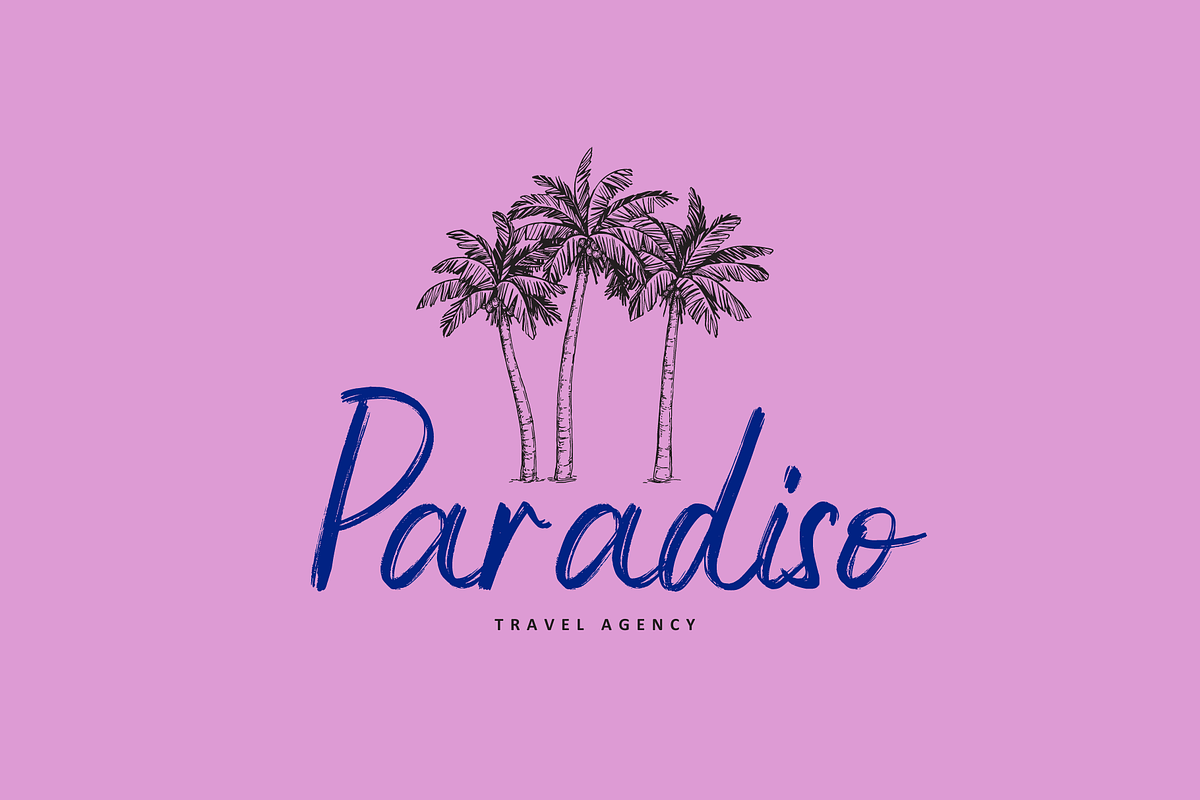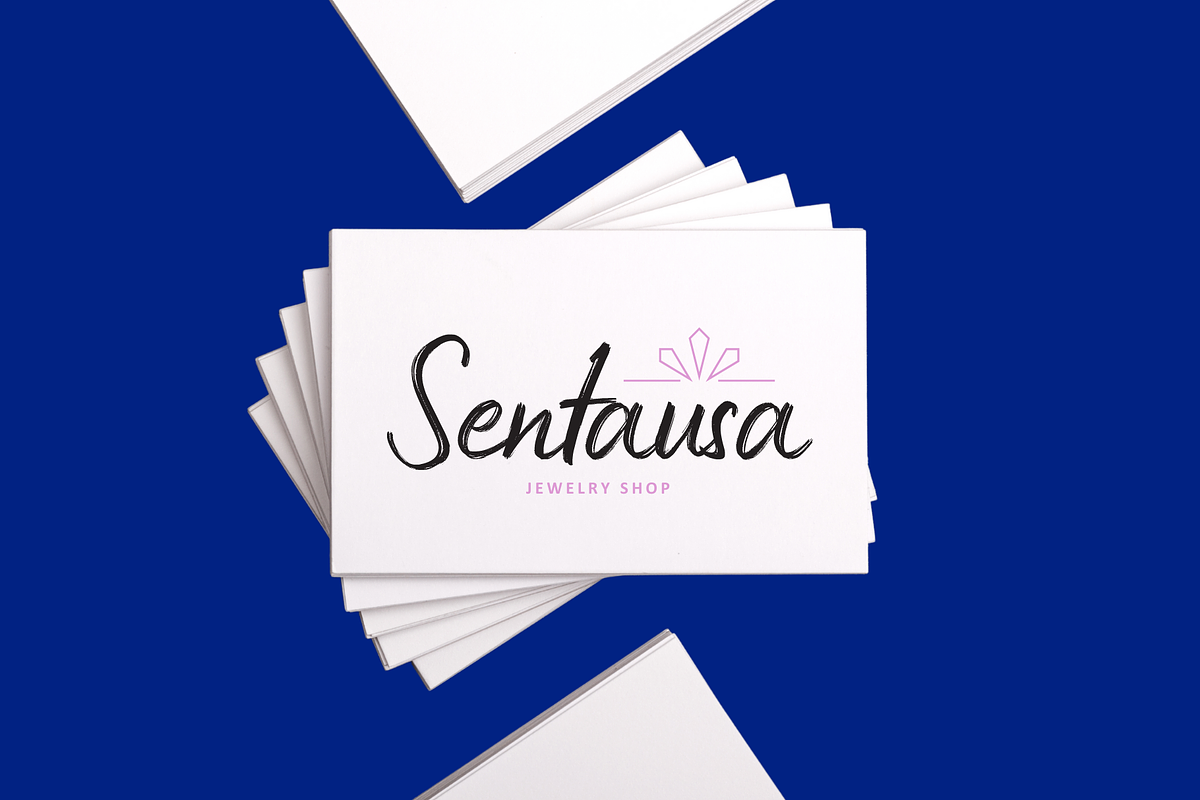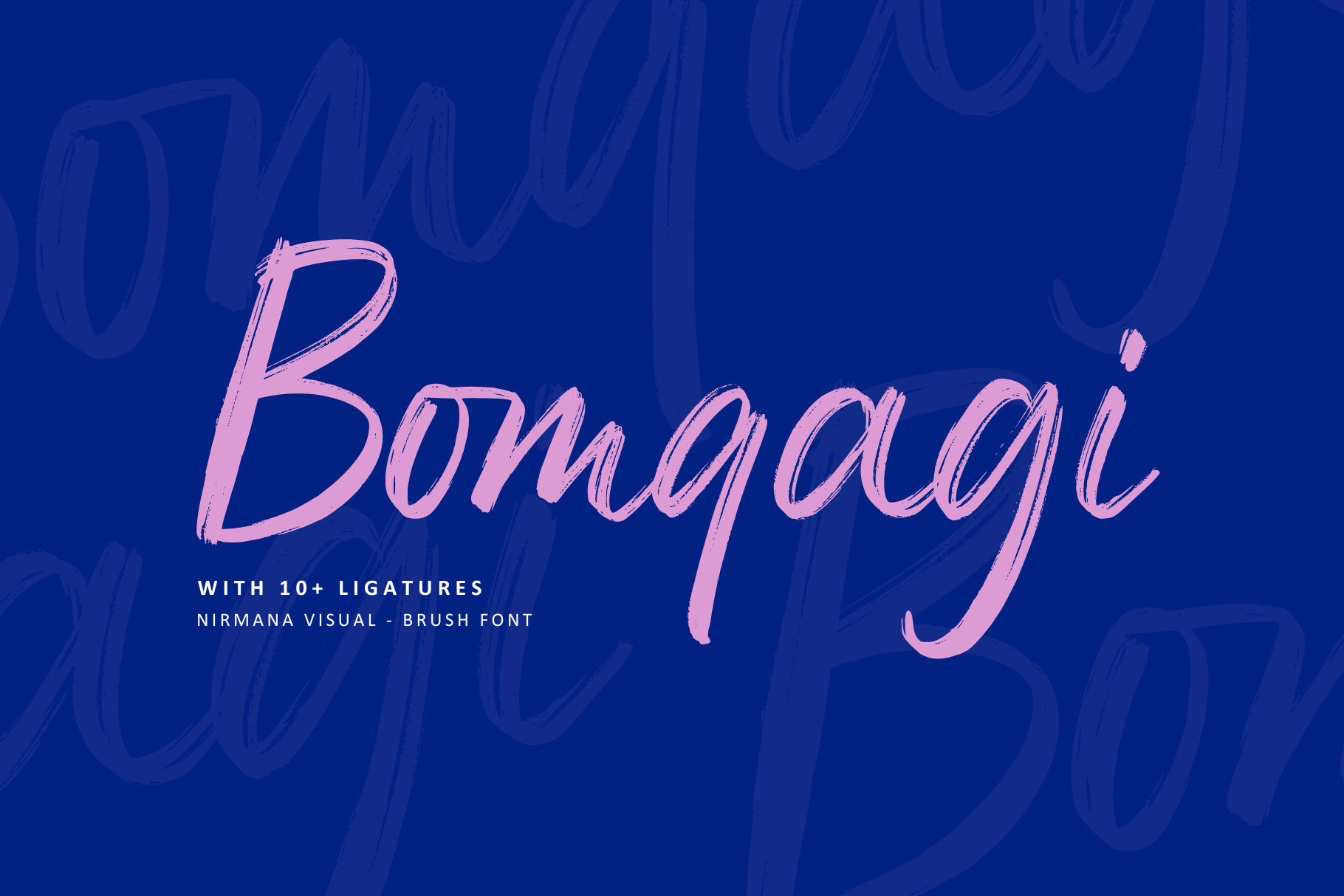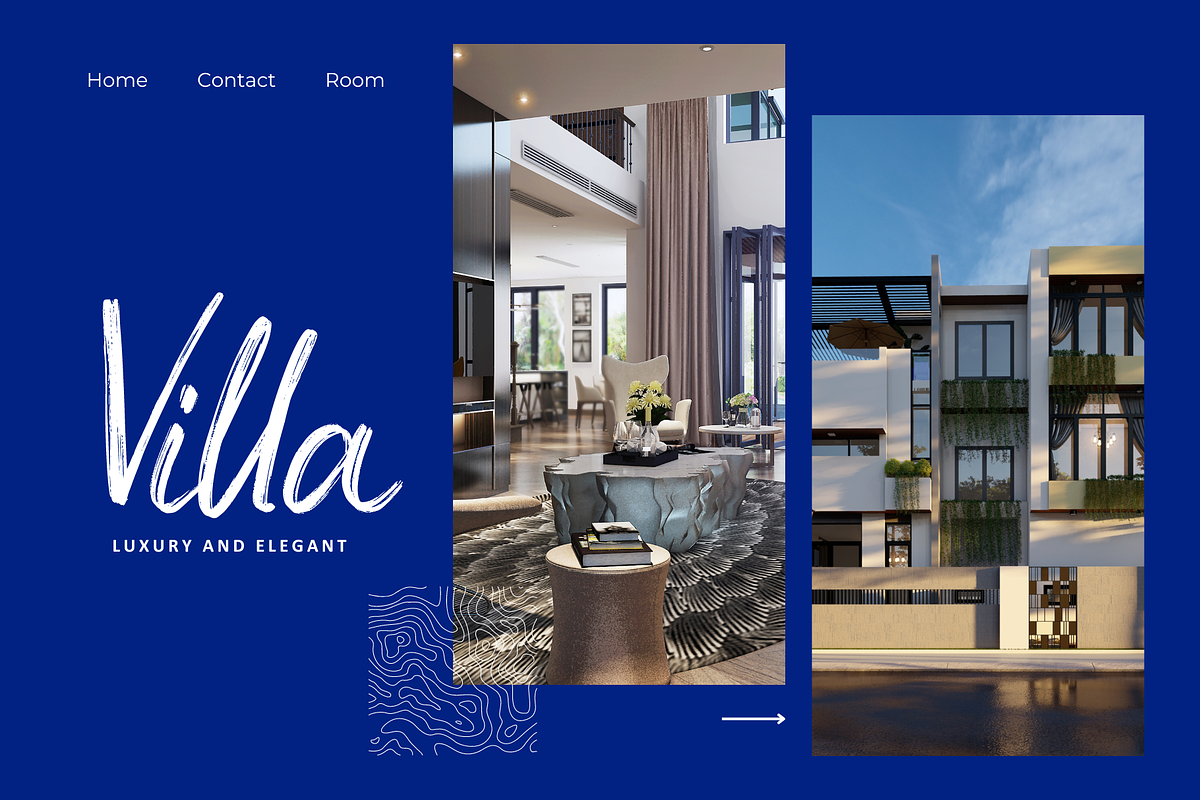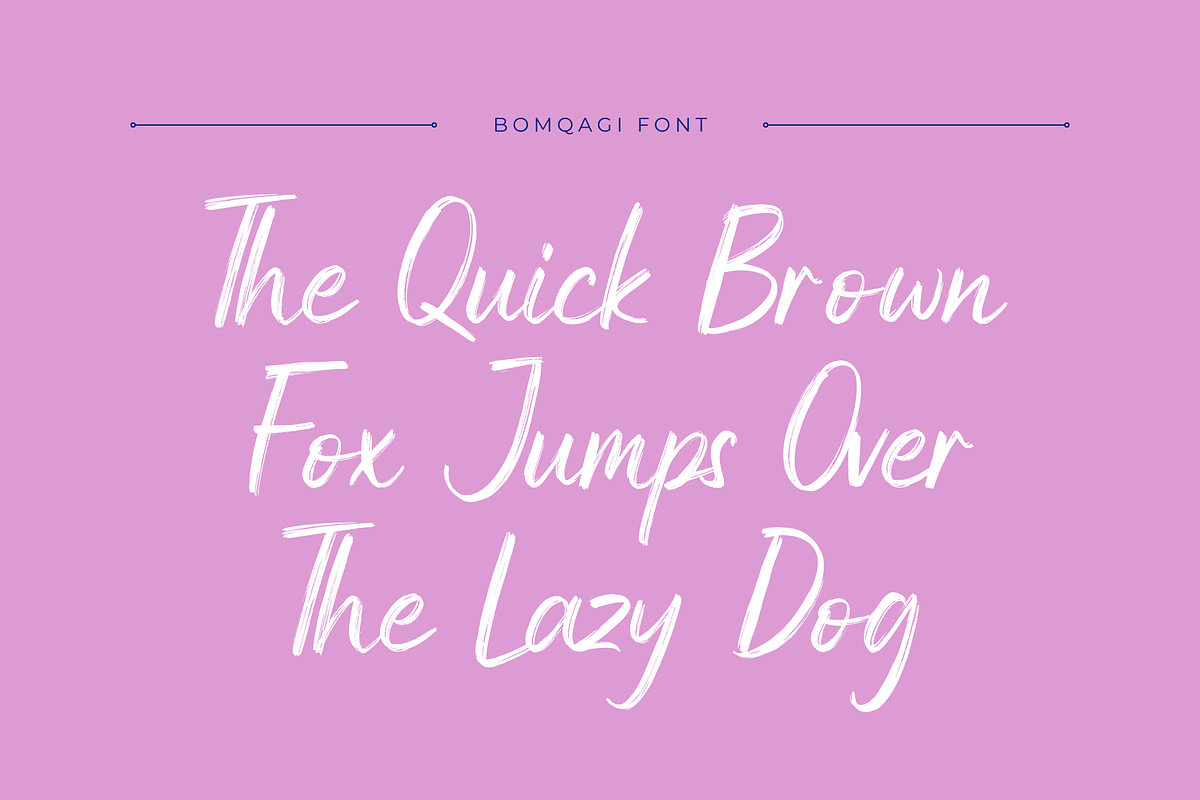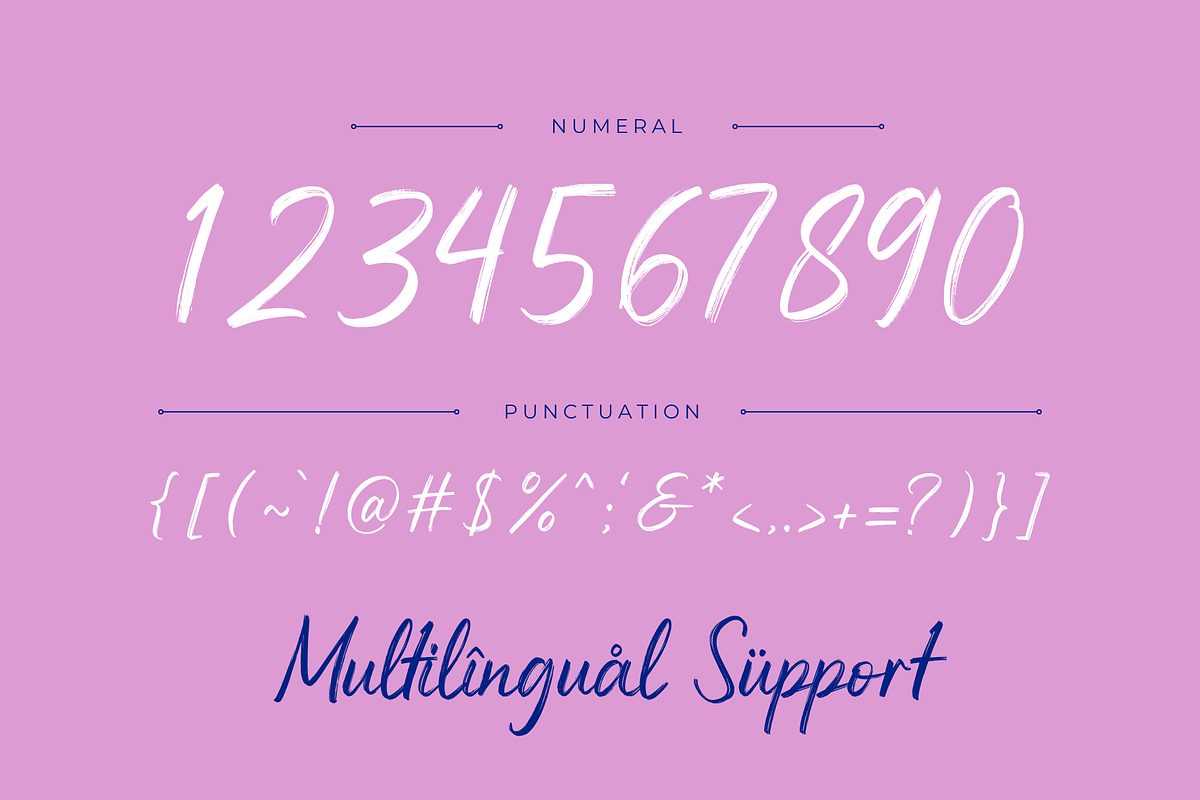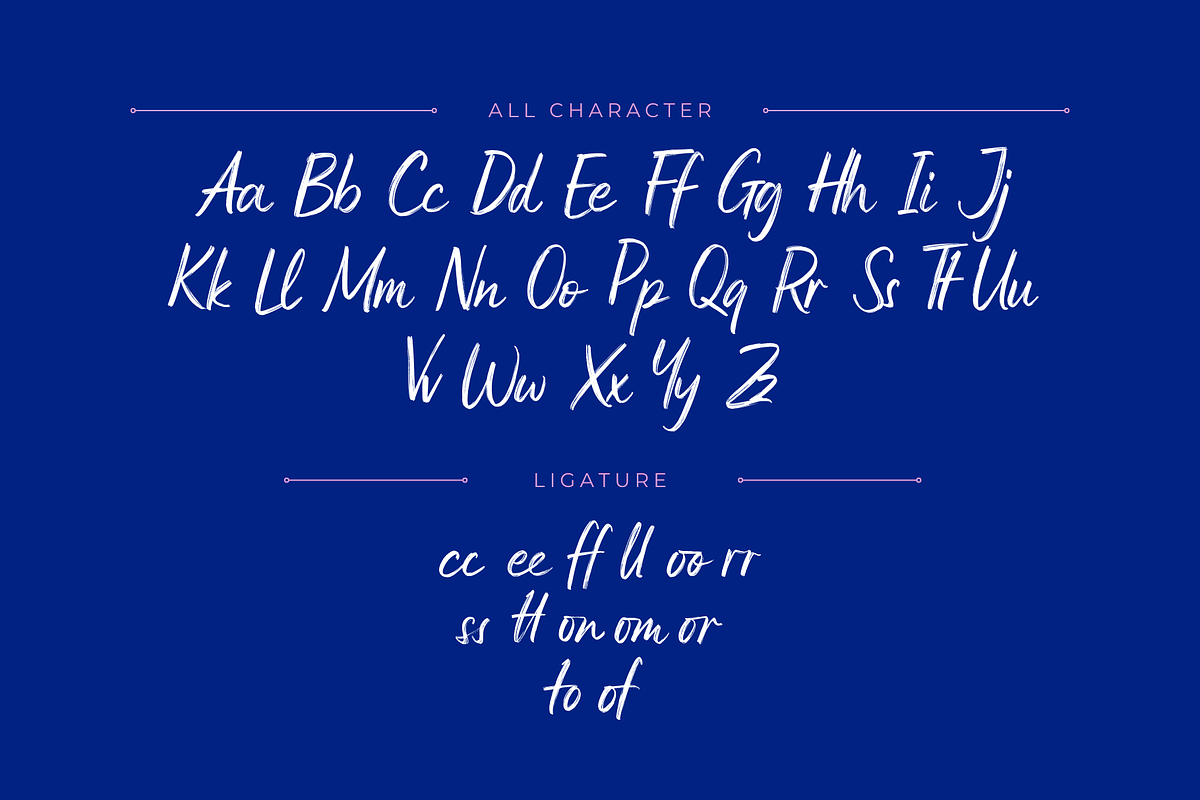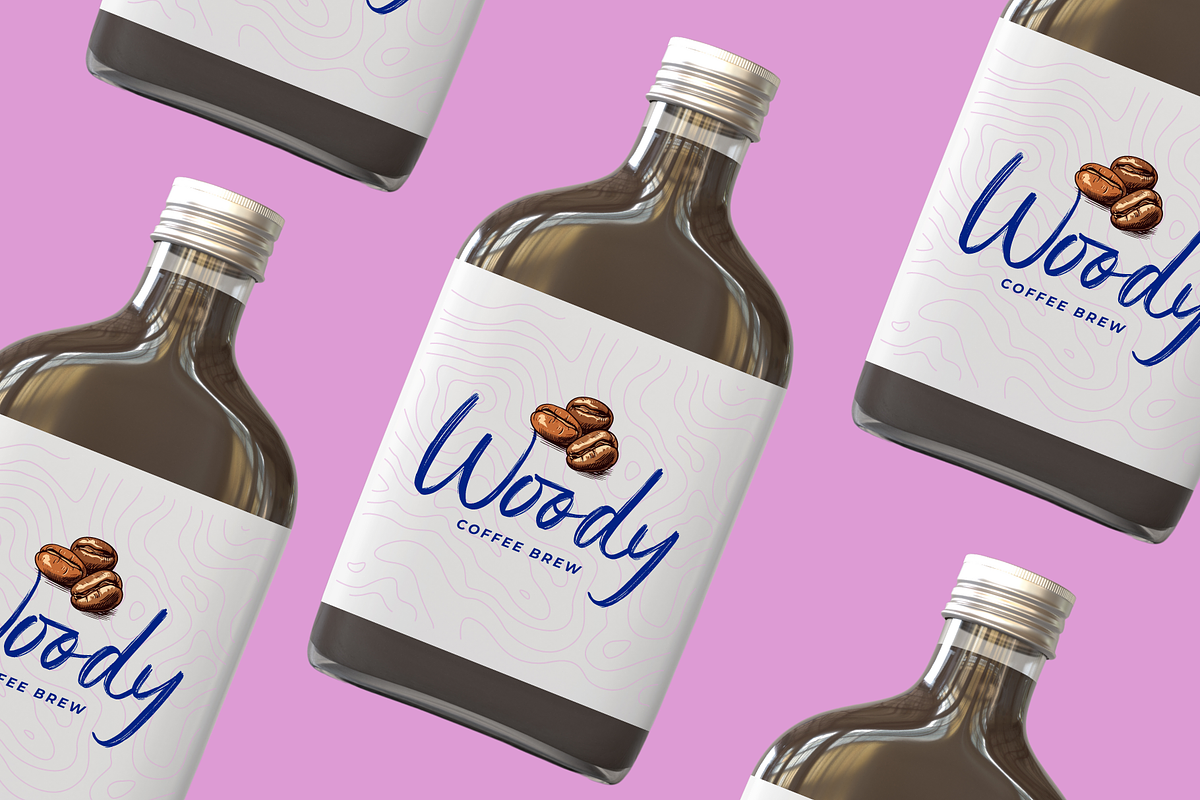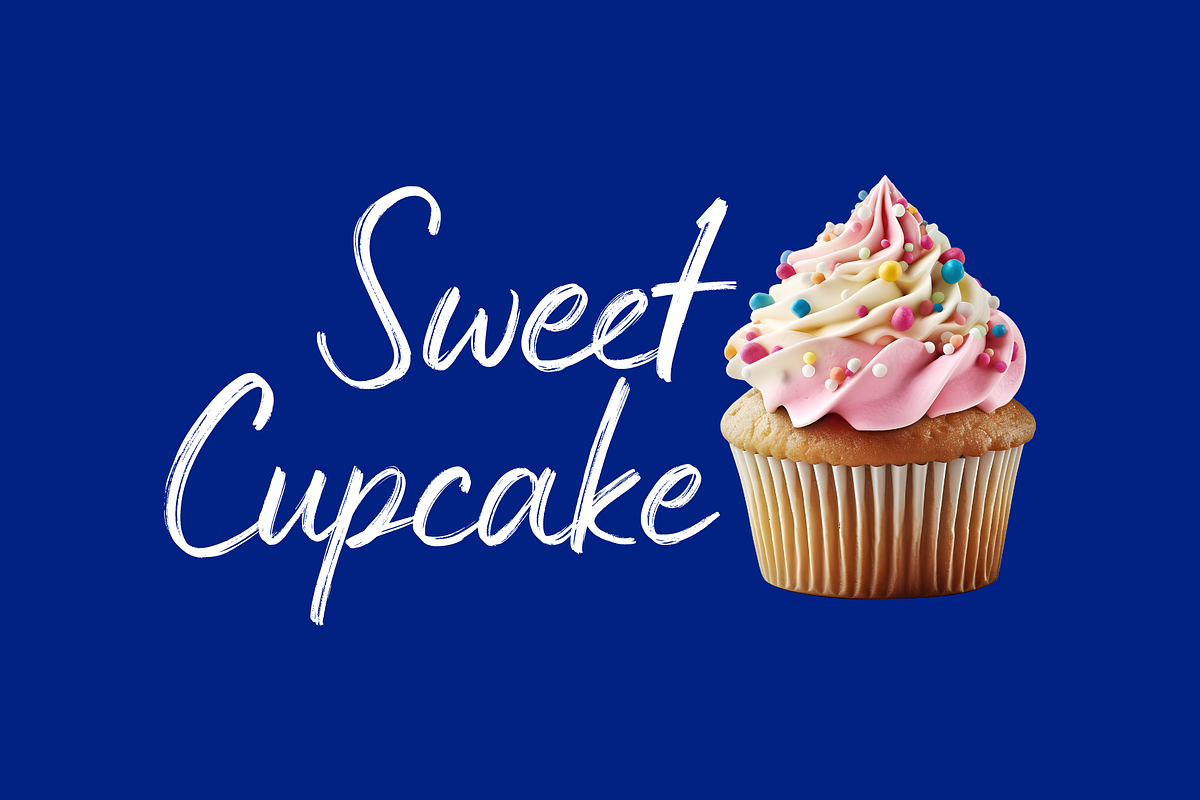
Bomqagi Brush - Script Logo Font
Bomqagi Brush - Branding Logo Font
Bomqagi Brush Font offers beautiful typographic harmony for a diversity of design projects, including logos & branding, social media posts, advertisements & product designs.